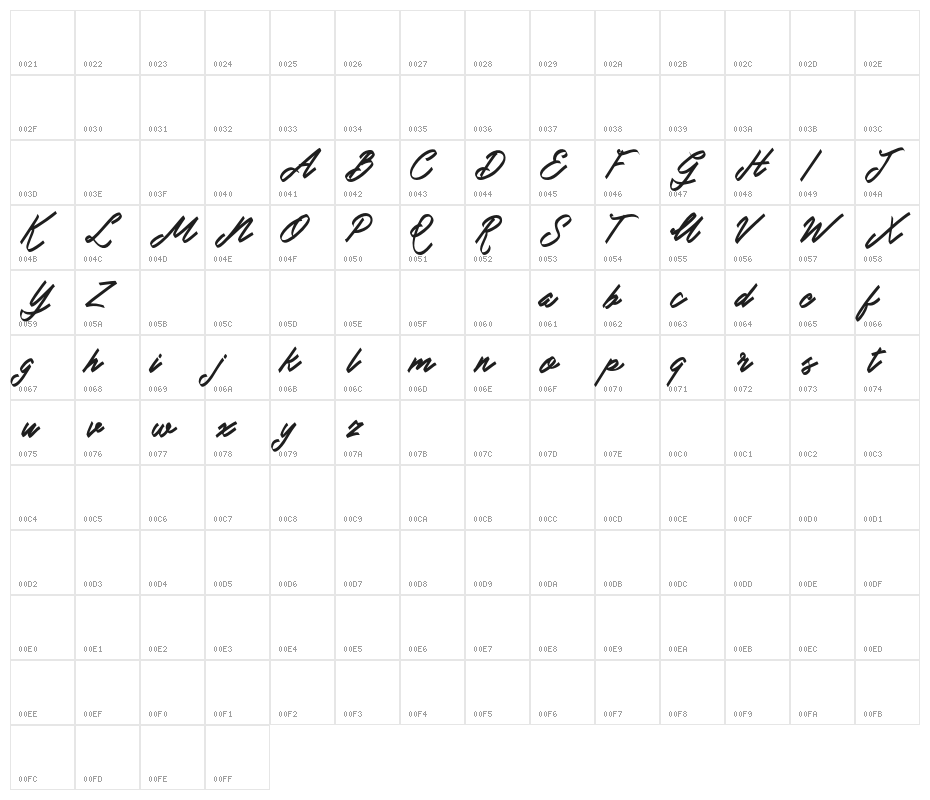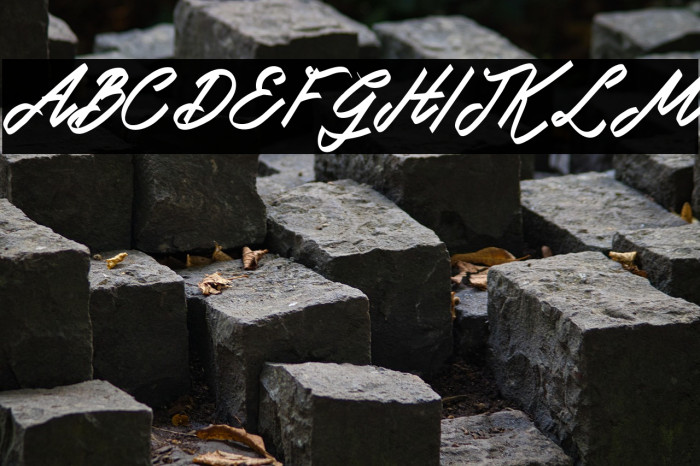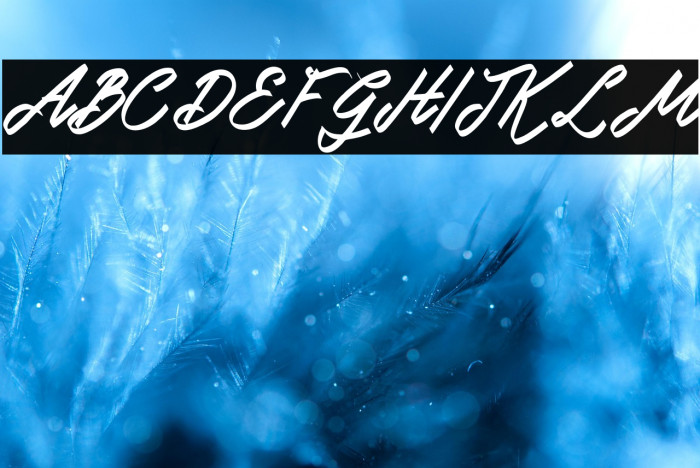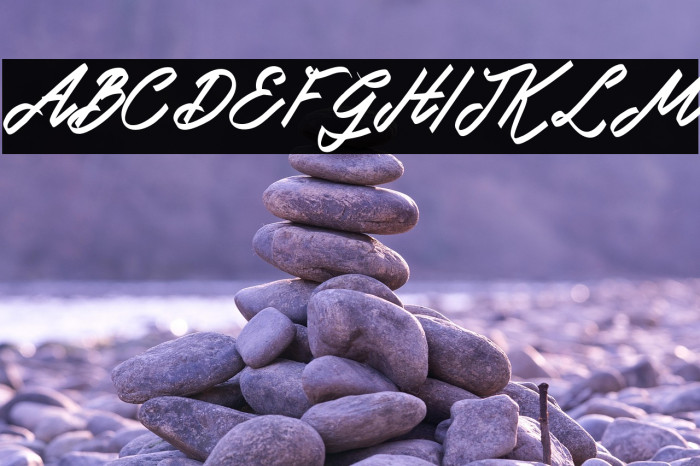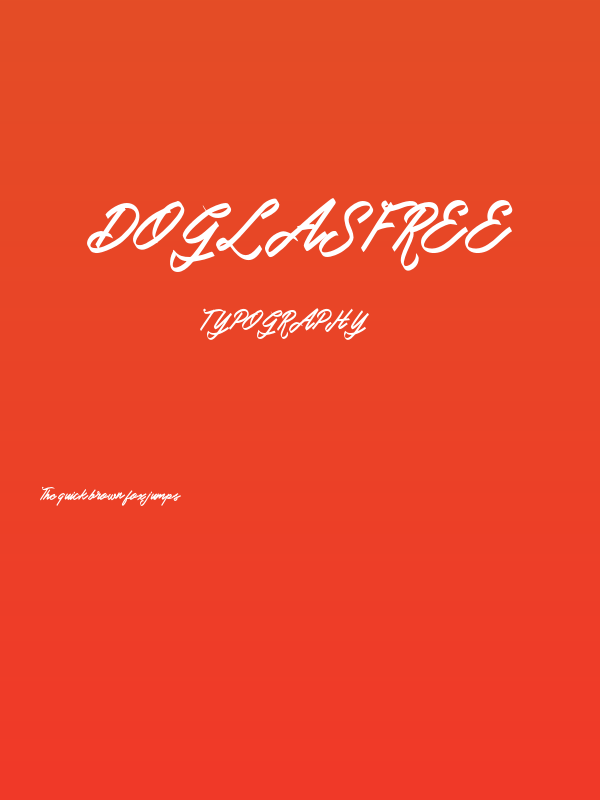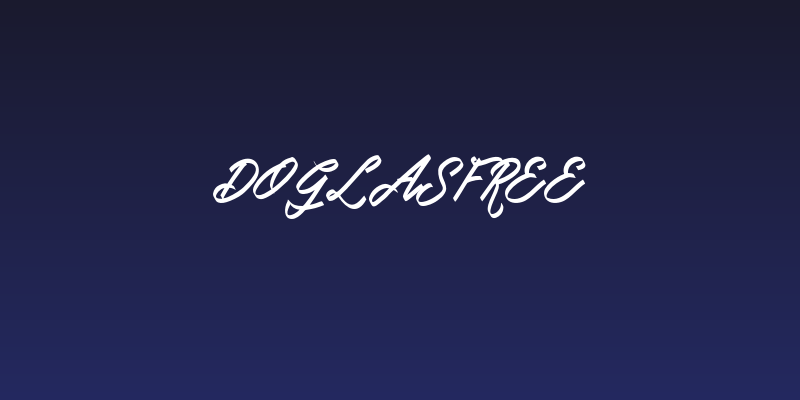
DoglasFREE Font
This font features a dynamic and flowing script style, characterized by its elegant and cursive letterforms. The strokes are smooth and connected, giving it a handwritten appearance that is both stylish and sophisticated. The uppercase letters are slightly more elaborate, with sweeping curves and loops, while the lowercase letters maintain a consistent flow with subtle variations. The numbers and special characters are designed to match the overall aesthetic, ensuring a cohesive look. This font exudes a sense of creativity and personal touch, making it suitable for projects that require a personal or artistic flair.
A dynamic and flowing script font with elegant, cursive letterforms.
- Font: DoglasFREE
- Proposed Projects: Ideal for wedding invitations, greeting cards, branding, and artistic projects.
- Category: Script
- Character Spacing: Tight
- Use Case: Logos, Invitations, Artistic projects